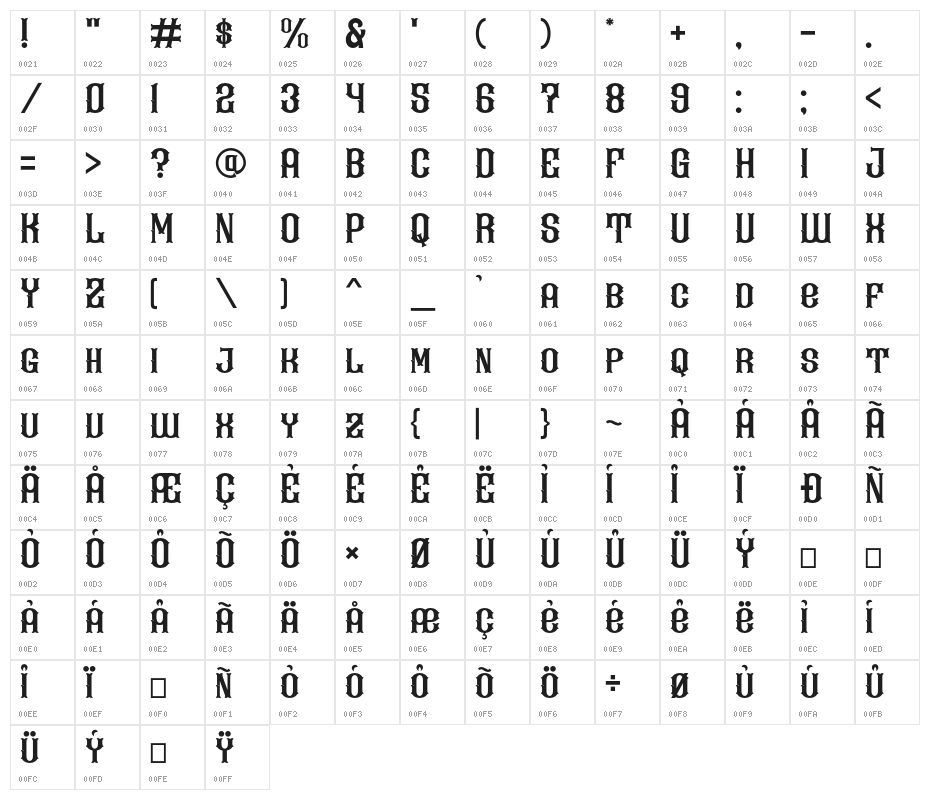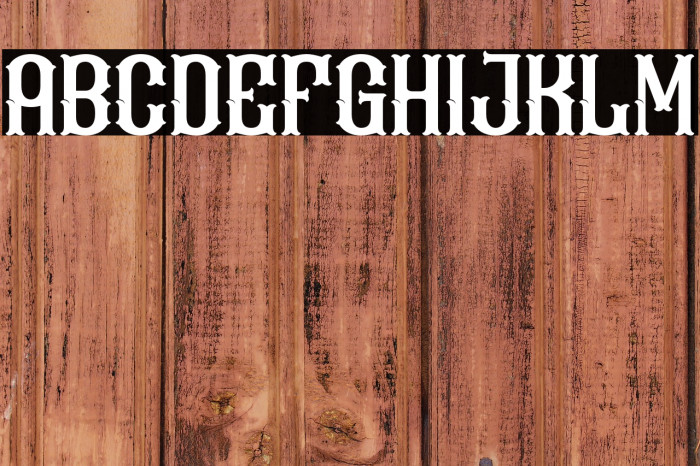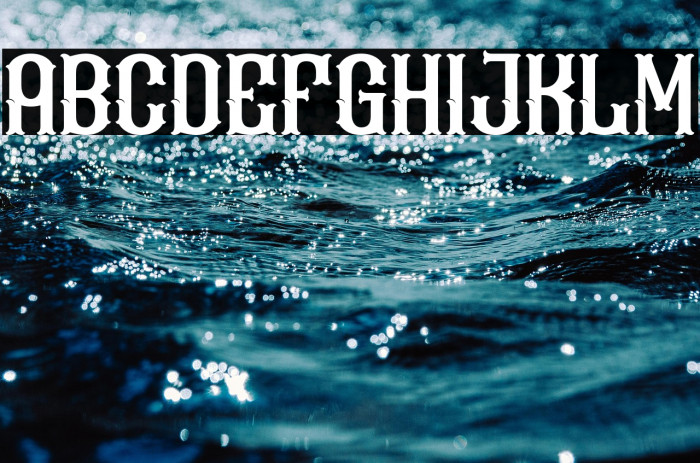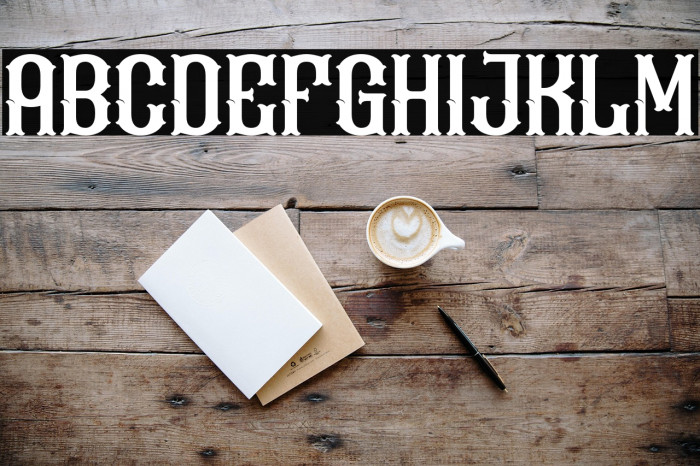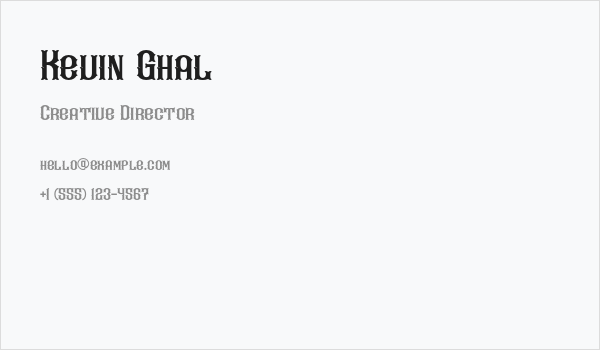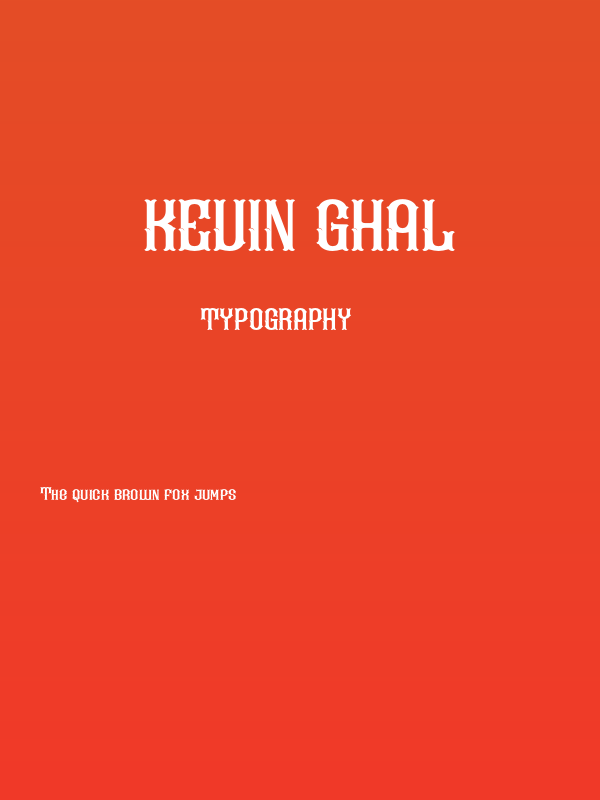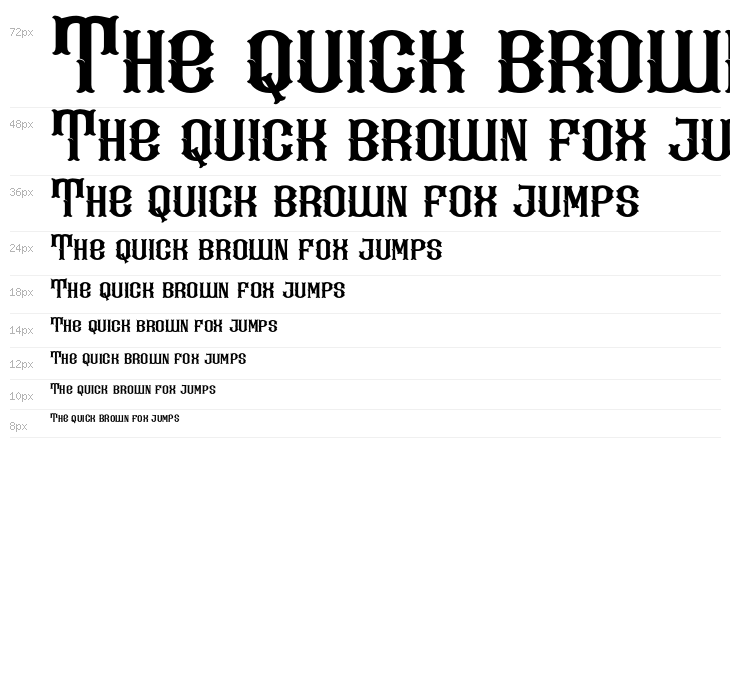
Kevin Ghal Font
Kevin Ghal Description
This font features a bold and decorative style with a strong presence. The characters have a distinct, ornate design with sharp edges and intricate details, reminiscent of vintage or gothic aesthetics. The uppercase letters are particularly striking, with elaborate serifs and unique flourishes that add to the font's dramatic appearance. The numbers and special characters maintain this ornate style, ensuring consistency across all glyphs. This font is ideal for projects that require a bold and eye-catching typeface, such as posters, headlines, or branding materials.
| Overall Style | Vintage, Gothic, Decorative |
| Proposed Projects | Ideal for posters, headlines, branding, and any project needing a dramatic, eye-catching typeface. |